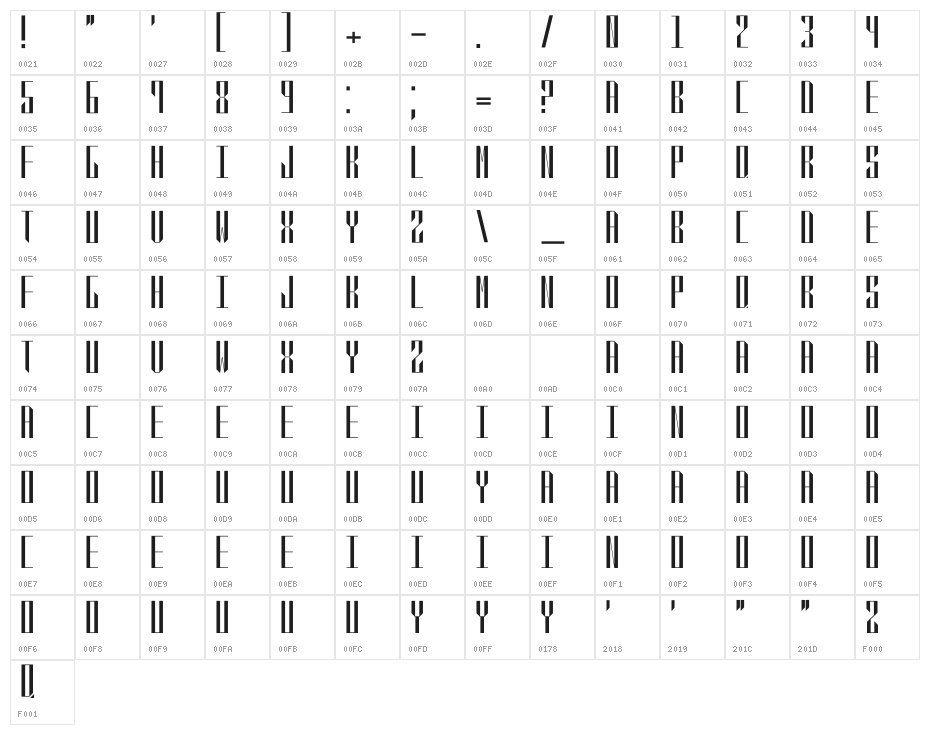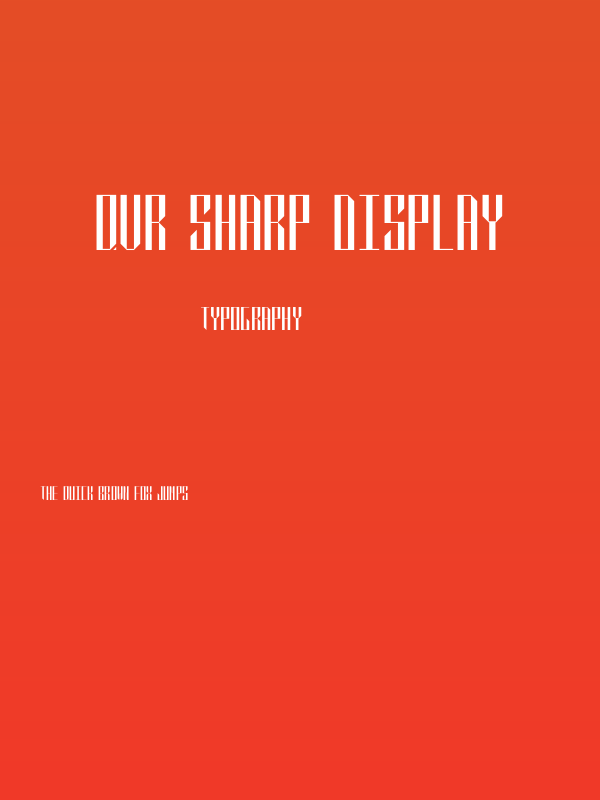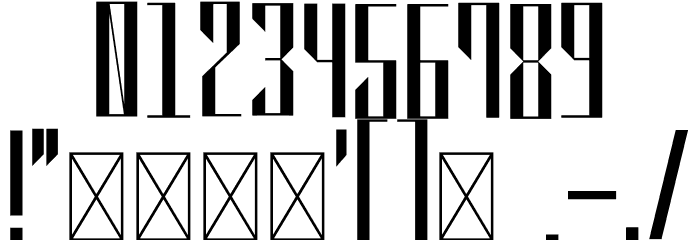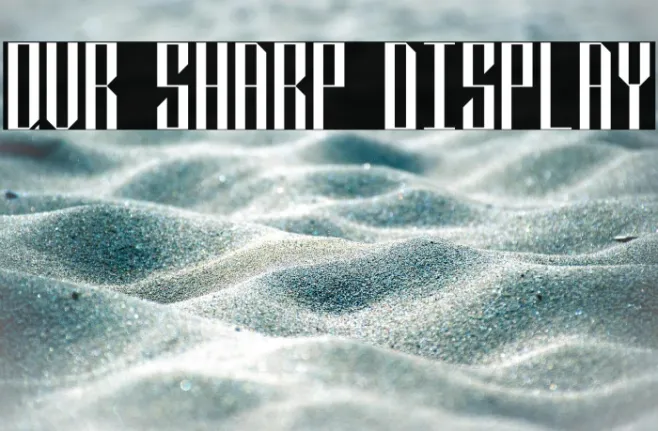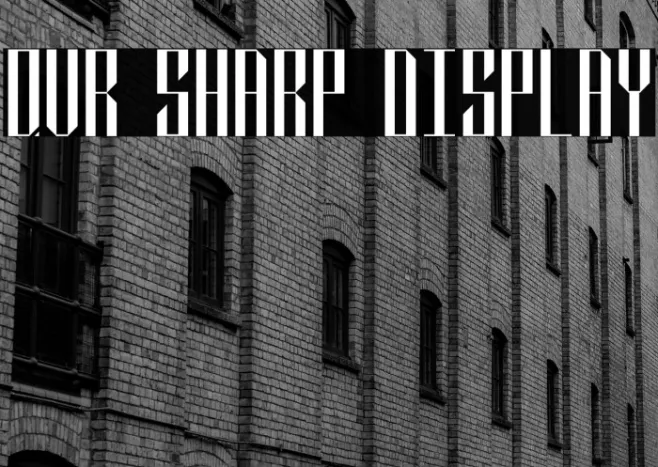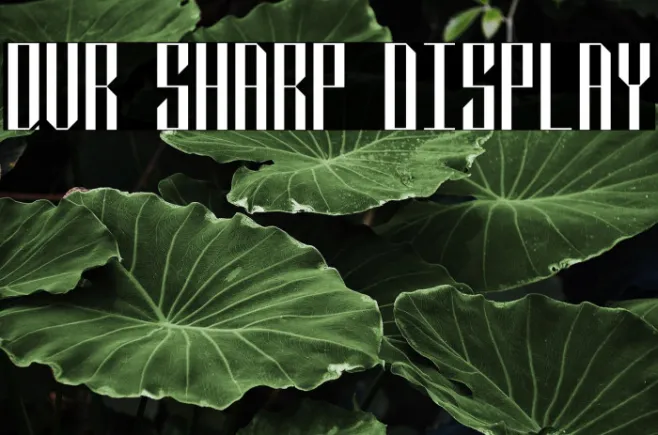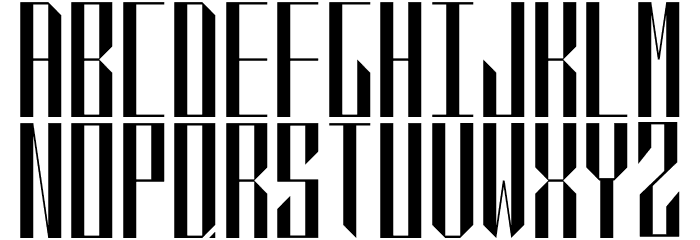
QVR Sharp Display Font
QVR Sharp Display Description
This font features a bold, geometric design with sharp, angular edges and a modern aesthetic. The characters are tall and narrow, creating a striking and impactful appearance. The uppercase letters are particularly distinctive, with unique cuts and angles that give the font a futuristic feel. The lowercase letters maintain the same angular style, ensuring consistency throughout the typeface. The numerals are equally bold and geometric, fitting seamlessly with the overall design. Special characters are included, maintaining the same sharp and modern style. This font is ideal for projects that require a strong visual impact and a contemporary look.
| Proposed Projects | Ideal for branding, posters, headlines, and any design requiring a futuristic and impactful look. |